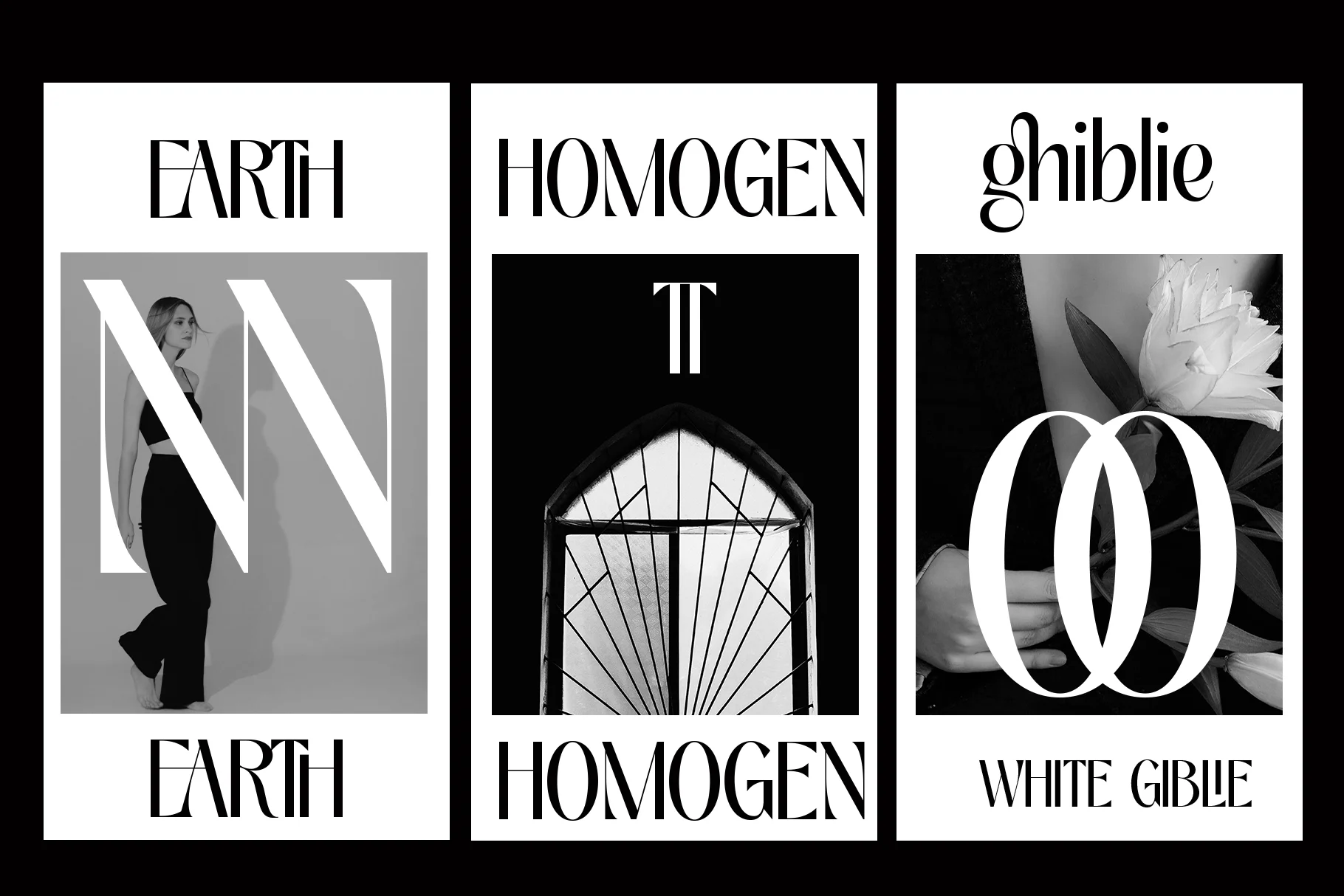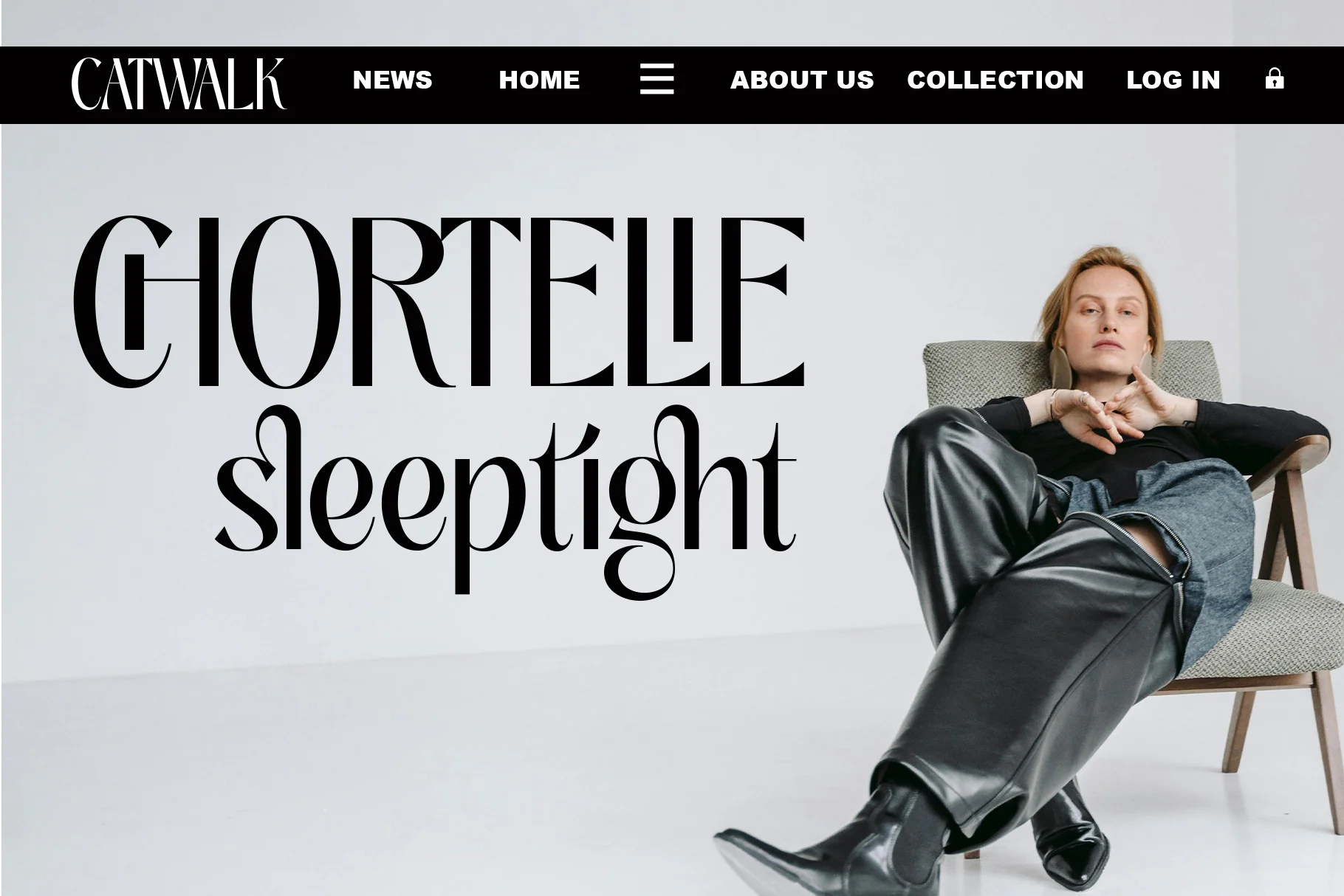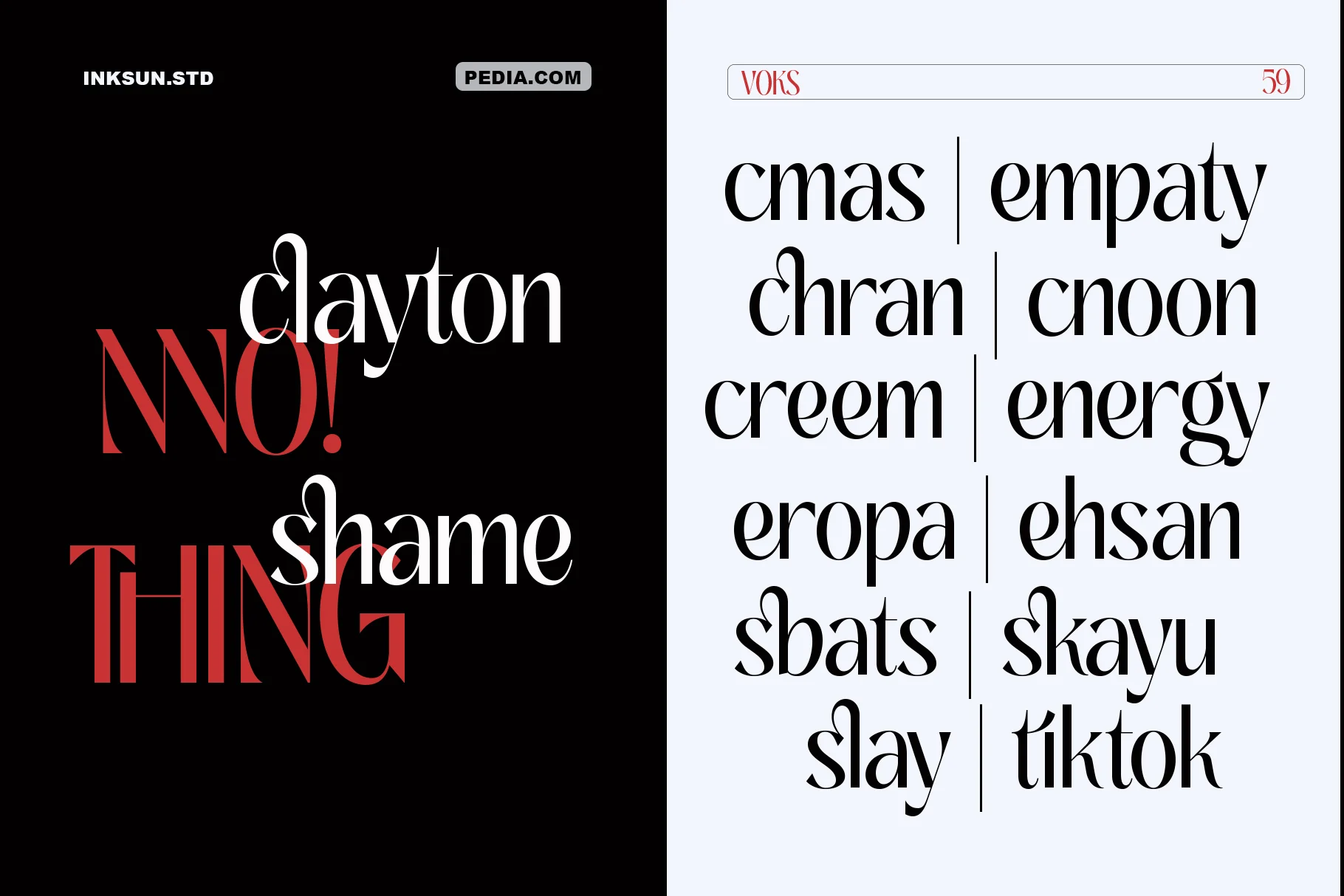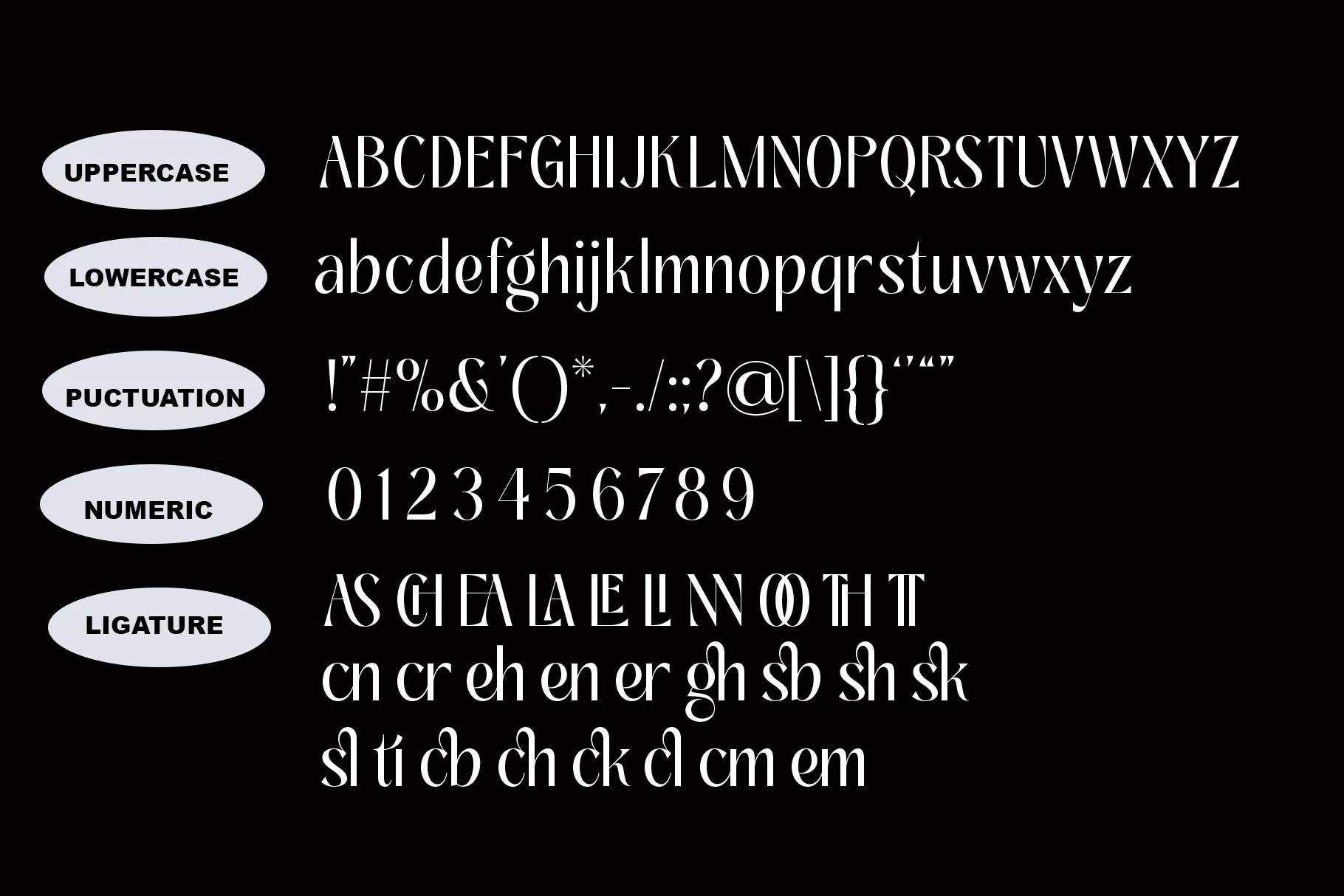
Mighty Asher
Mighty Asher, is a captivating example of a Modern Sans Serif style with an elegant and decorative flair. Its key feature is the extreme contrast between the thick (vertical) and thin (horizontal) strokes, which gives it a luxurious and highly stylish appearance. The font is clearly designed as a Display Font, meant to be sophisticated and high-fashion. the font provides special letter connections (ligatures) and alternative glyph shapes, allowing designers to create more unique, smooth, and elegant compositions.